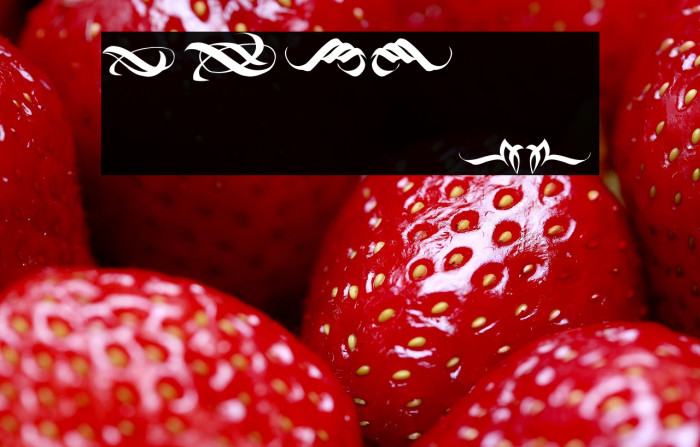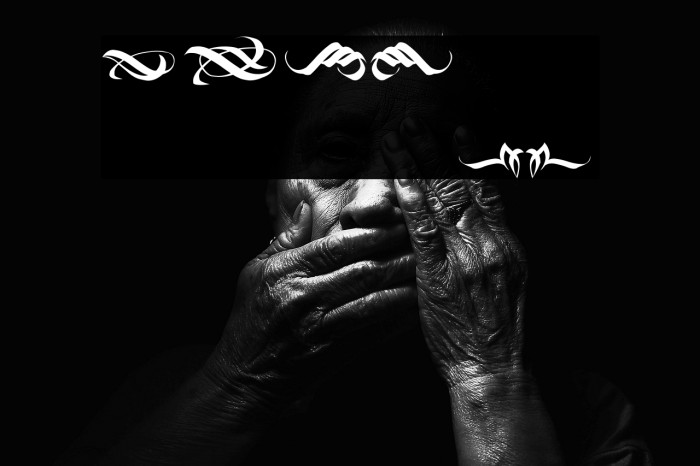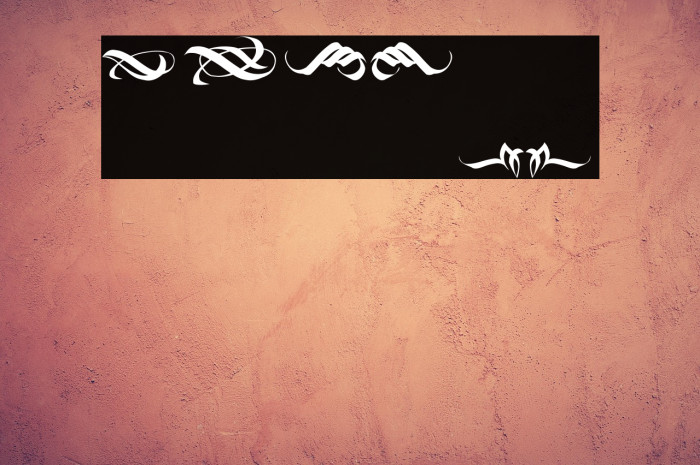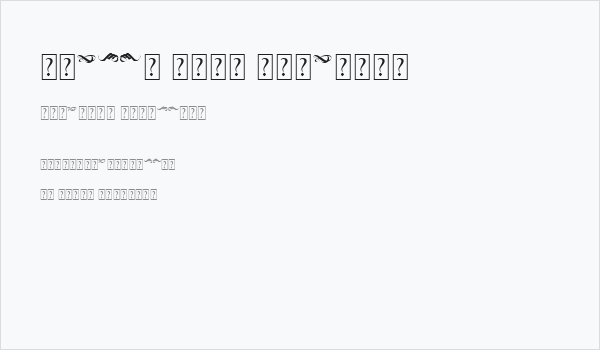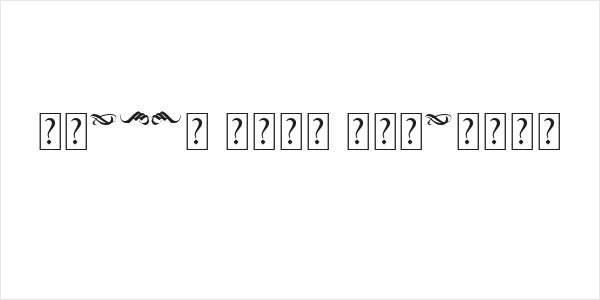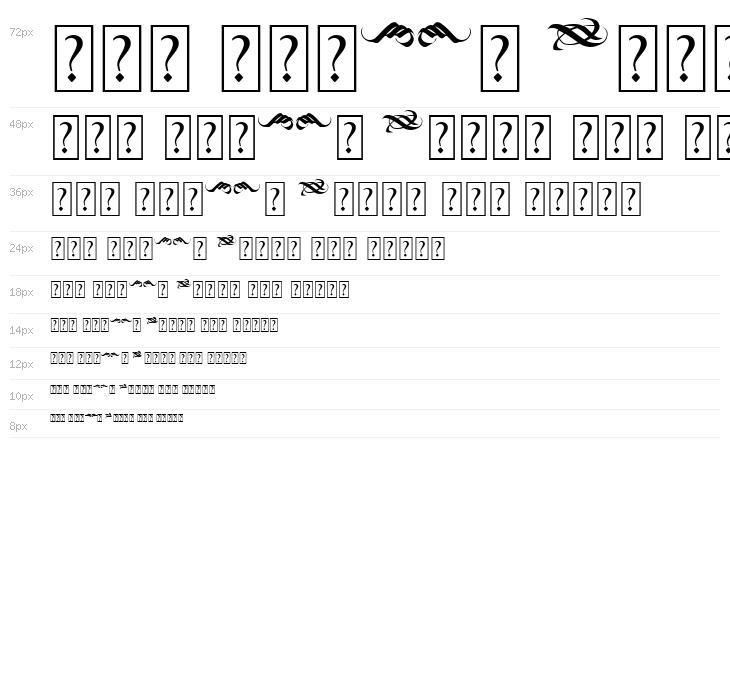
Black Wine Ornament Font
Black Wine Ornament Description
This design features a series of intricate ornamental elements with a calligraphic flair. The swirls and flourishes are reminiscent of vintage decorative styles, often used to embellish formal documents or invitations. The elements are bold and elegant, with a high contrast between the thick and thin strokes, creating a dynamic visual impact. The overall style is both classic and decorative, suitable for adding a touch of sophistication to any project.
| Overall Style | Vintage, Decorative |
| Use Case | Logos, Invitations, Decorative Borders |
| Proposed Projects | Ideal for wedding invitations, formal certificates, decorative borders, and vintage-themed designs. |